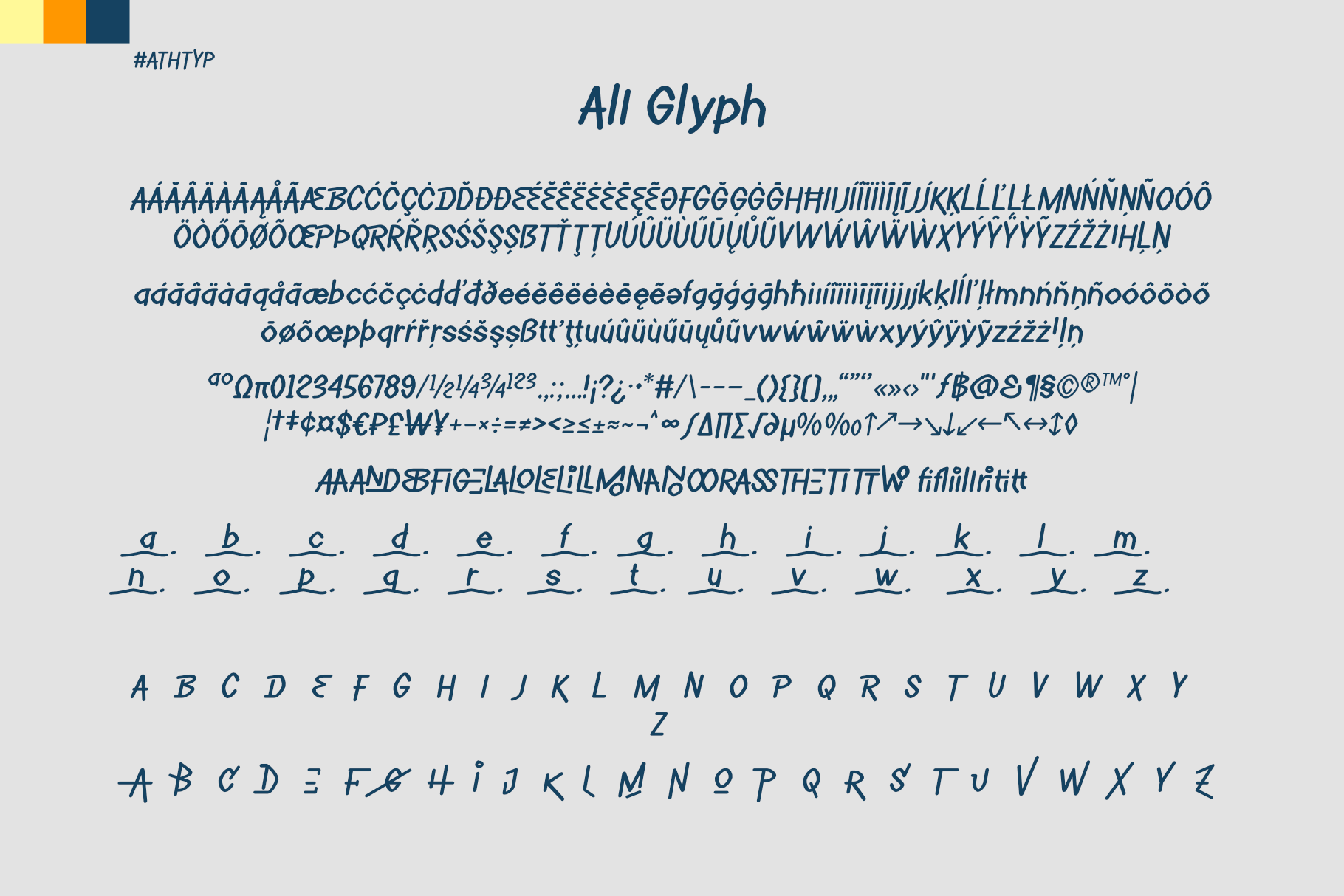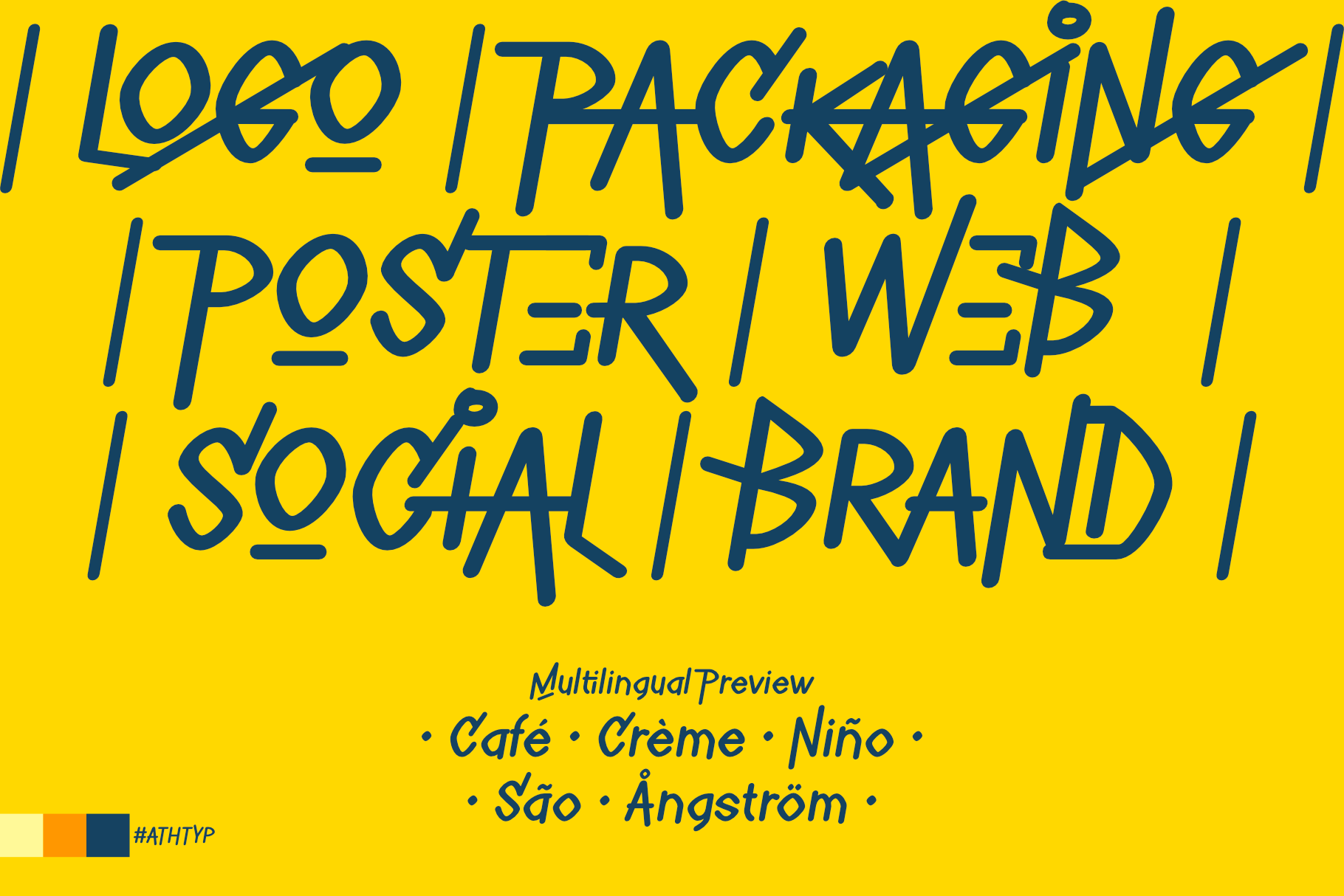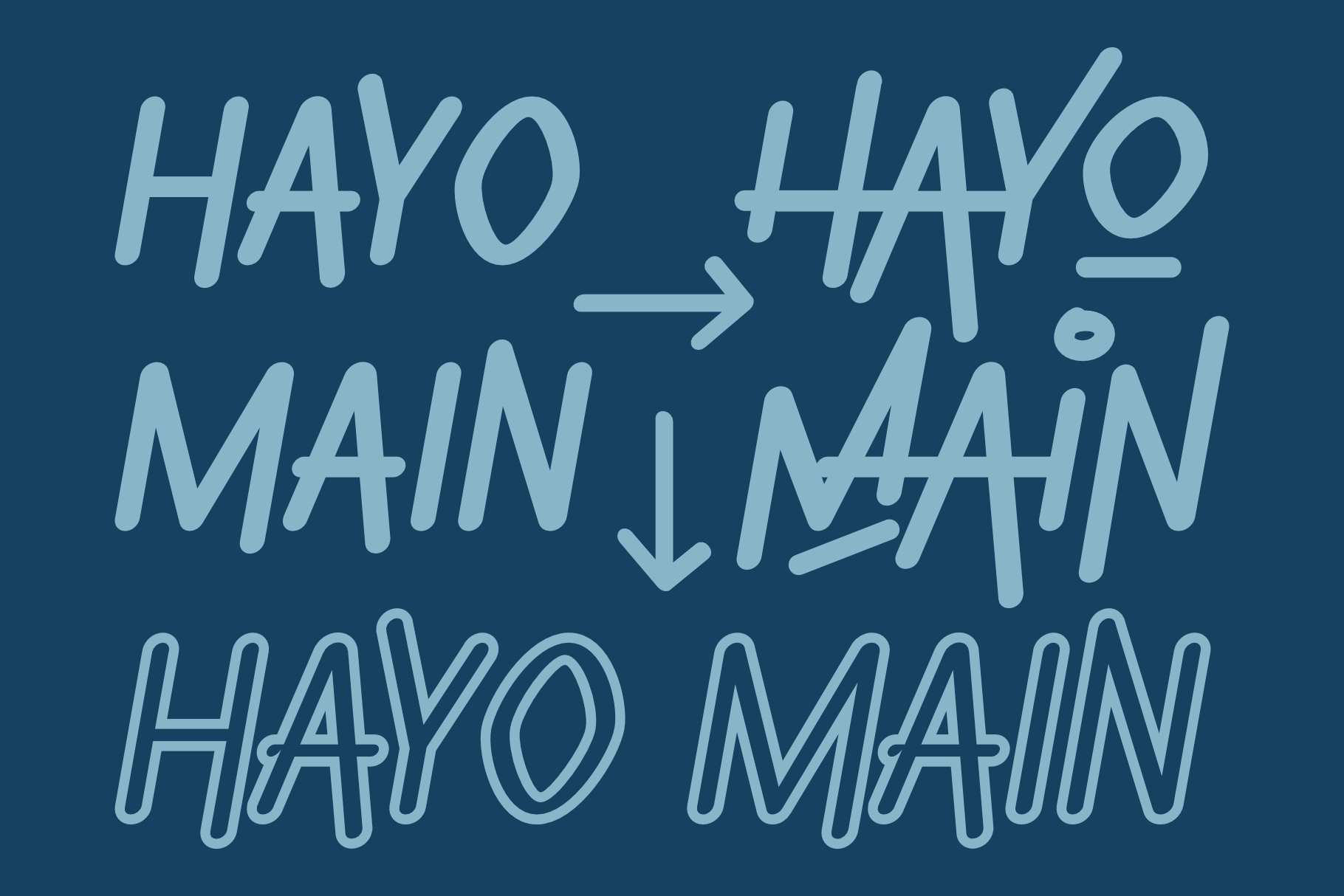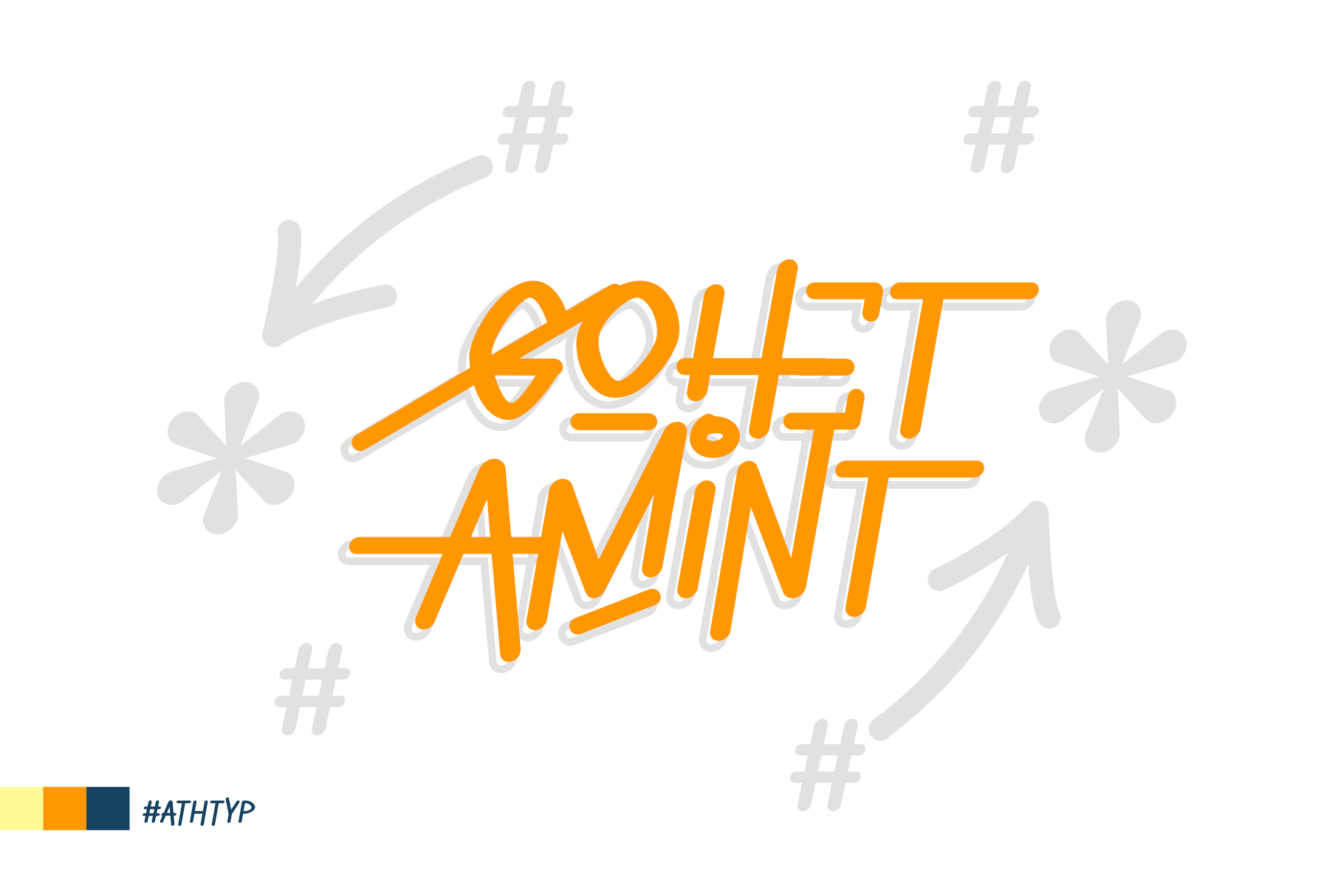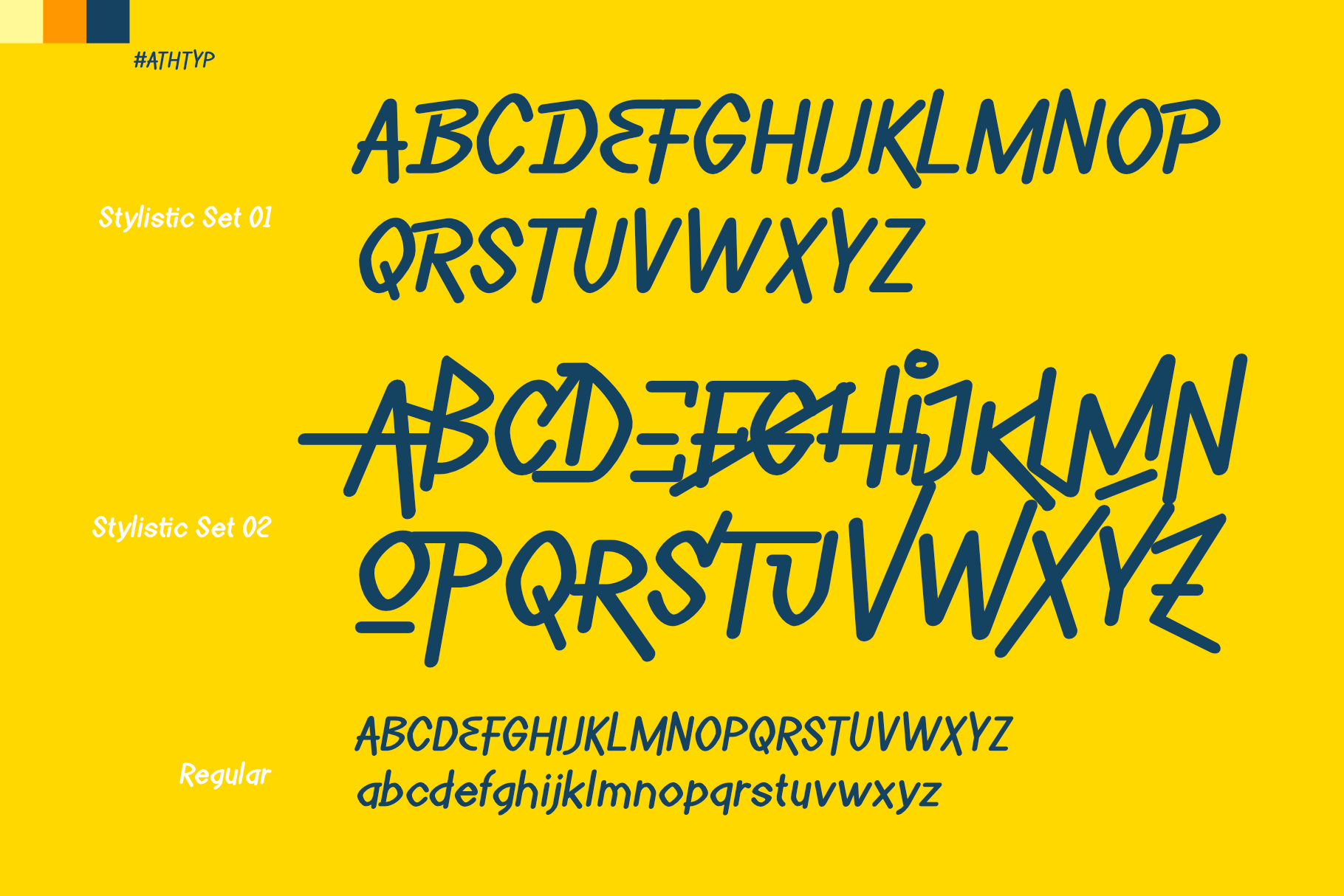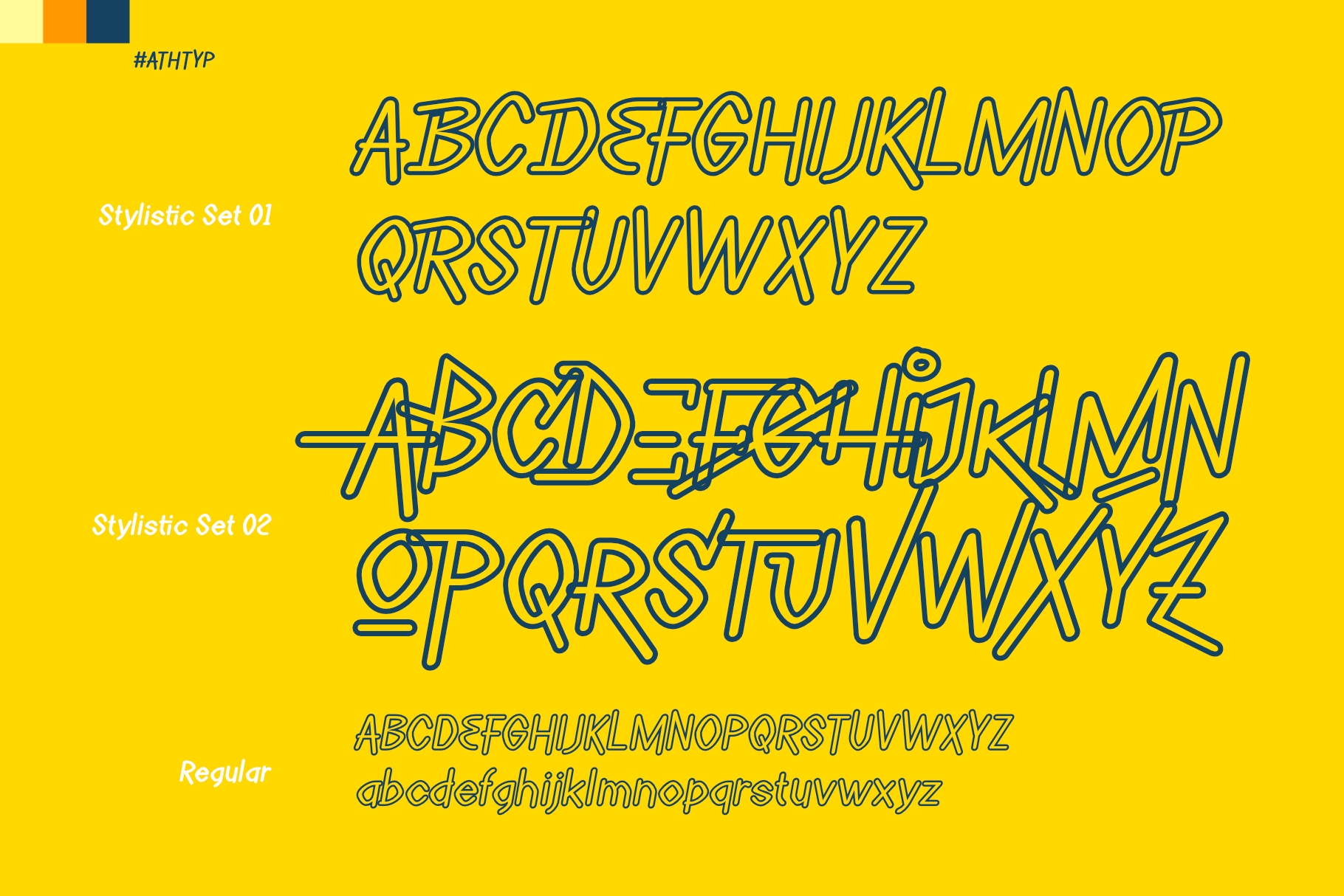
Wavag – Fun Display Logo Font
Wavag – Fun Display Logo Font Complete Family
Wavag is a fun and expressive display logo font designed to create bold, memorable, and high-impact branding. This logo font features playful hand-drawn letterforms with organic curves and dynamic shapes that bring energy, creativity, and personality to any design project.
Perfect as a logo font for creative brands, streetwear labels, coffee shops, lifestyle businesses, youth culture, posters, packaging, and social media content, Wavag helps your logo stand out with a unique and lively visual style. Its distinctive character makes this display logo font especially effective for brands that want to communicate confidence, freedom, and originality.
Wavag comes with Regular and Outline styles, allowing designers to create layered, bold, or experimental logo compositions. With 30 ligatures and advanced OpenType features, this logo font offers flexibility and creative control for crafting custom logos, headlines, and expressive typography systems.
Whether you are building a new brand identity from scratch or refreshing an existing one, Wavag is a versatile fun display logo font that delivers strong visual impact, modern appeal, and memorable branding across both digital and print platforms.
• Regular & Outline styles
• 30 ligatures
• OpenType features
• Uppercase & lowercase letters
• Numbers & punctuation
• Multilingual support